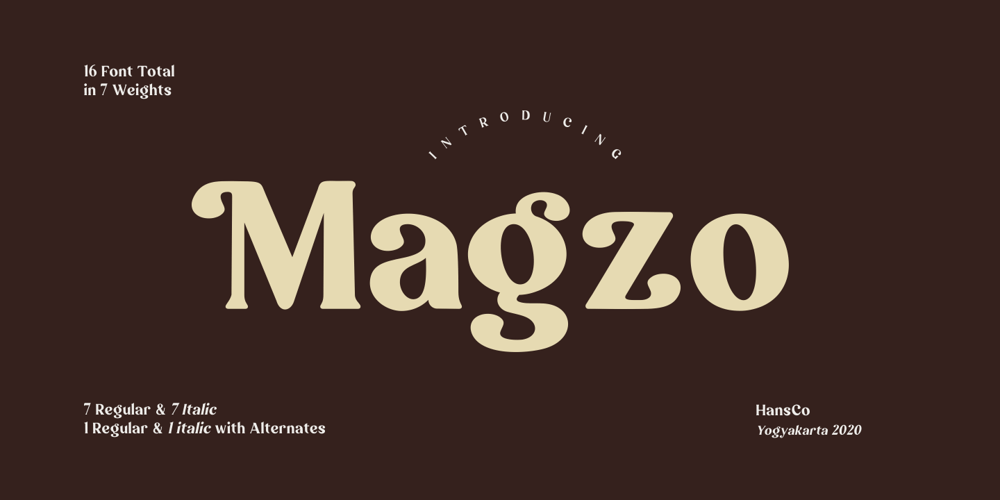
Magzo Font Family was designed by Burhan Afif and published by HansCo. Magzo contains 14 styles and family package options. Magzo is specially designed for food logo brand identity and packaging design projects. Some other industries that are very suitable for this font are beauty cosmetic and handmade projects. Magzo consists of 16 fonts including: 7 normal, 7 italic and 2 alternate (semi Bold) normal and italic versions too. As a note, alternate characters and ligature only available in Magzo Alt regular and italic . You can see an example of using the Magzo Alt font on covers 1 and 3.Tutorial how to Install & use Alternate / Special Character : https://hanscostudio.com/tutorial/Enjoy!